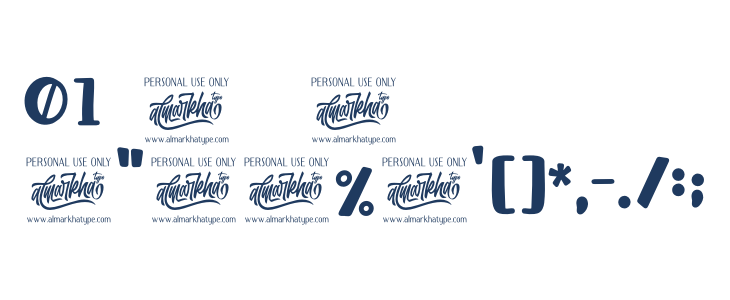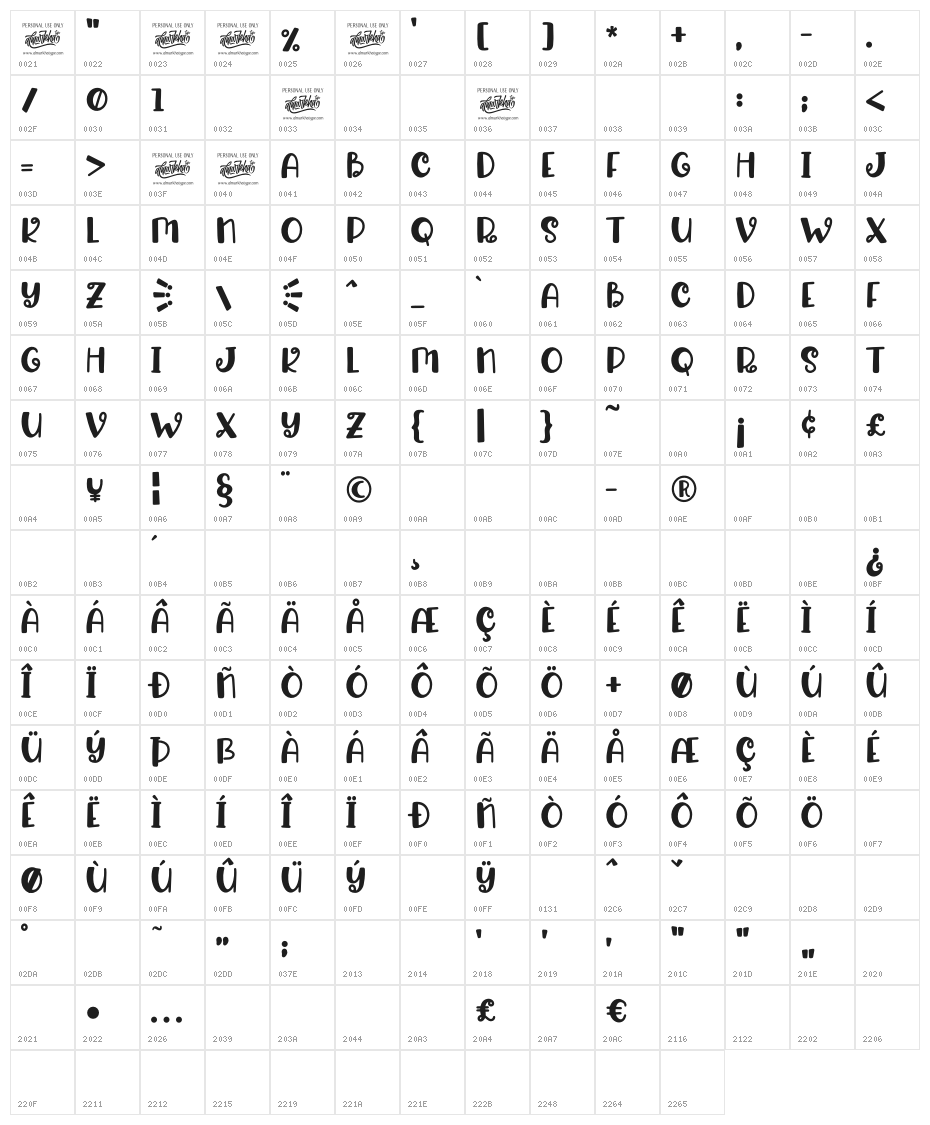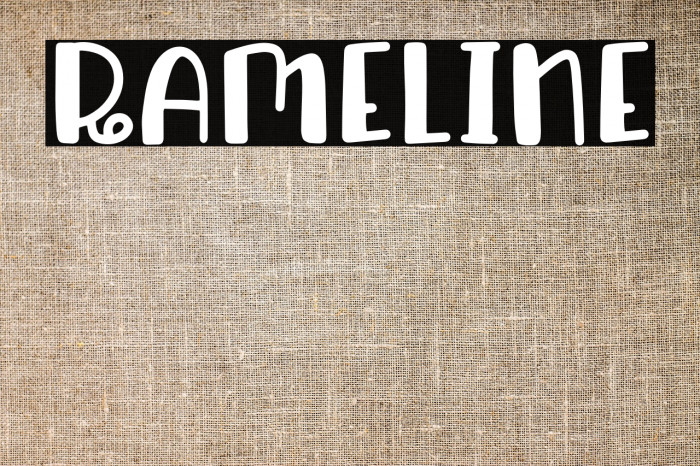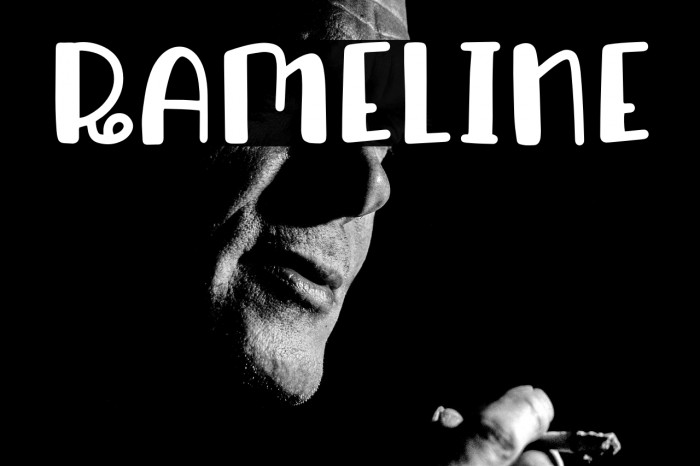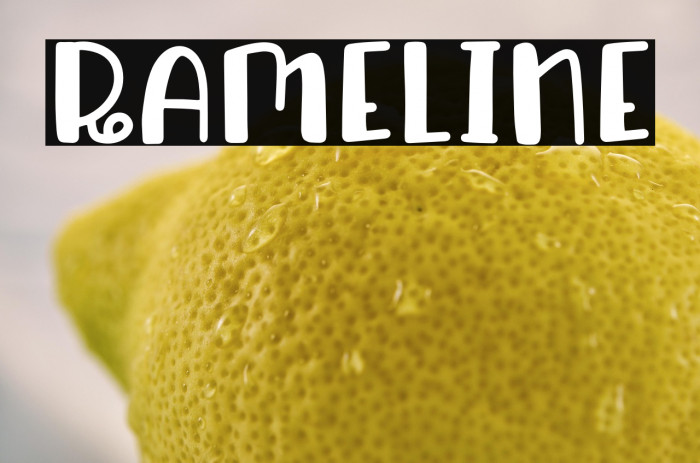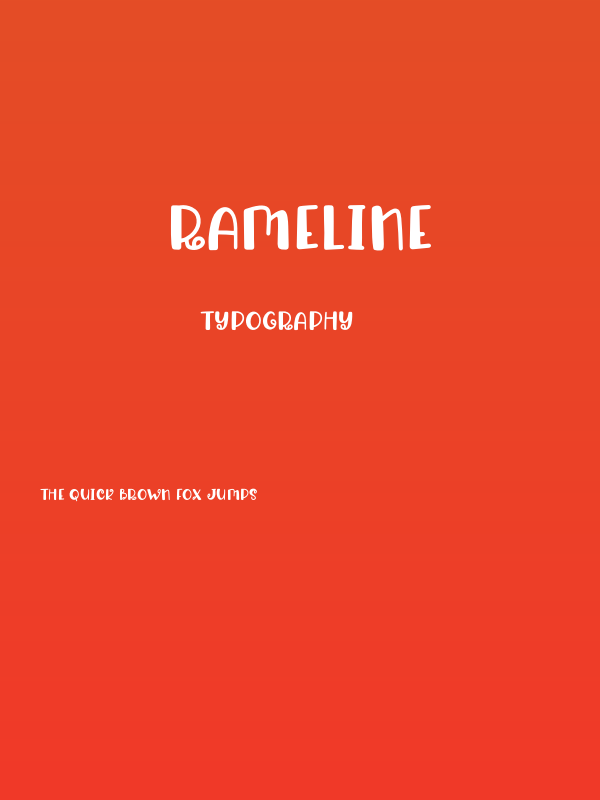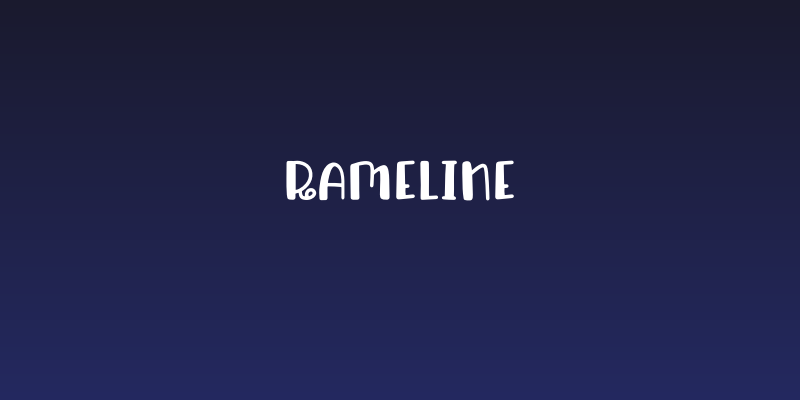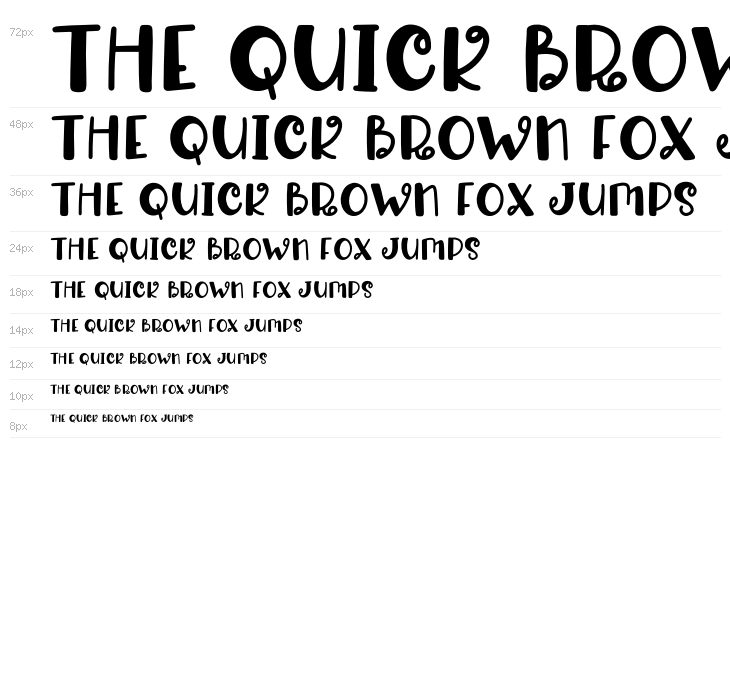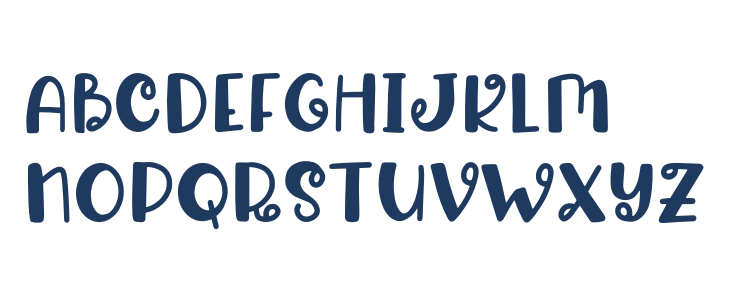
Rameline Font
Rameline Description
This font features a playful and whimsical design with bold, rounded characters that exhibit a unique blend of curves and angles. The uppercase letters are distinct with exaggerated loops and strokes, giving them a lively appearance. The lowercase letters maintain a consistent style, complementing the uppercase with their own quirky flair. Numbers and special characters are designed to match the overall aesthetic, ensuring a cohesive look across all text. This font is ideal for projects that require a fun and engaging visual element.
| Proposed Projects | Ideal for children's books, playful branding, greeting cards, and creative posters. |